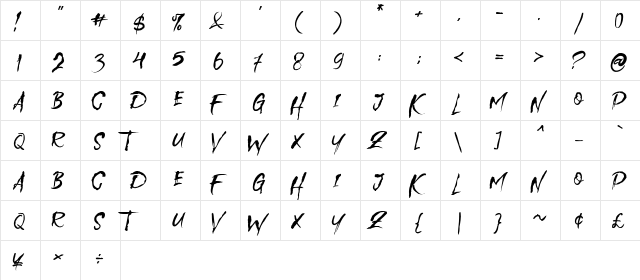
Alert Covid Regular
| Foundry | Khurasan |
| Designer | Khurasan |
Design Context for Alert Covid Typeface
Alert Covid is a composed and adaptable typeface that performs quietly and consistently across a wide range of design contexts.